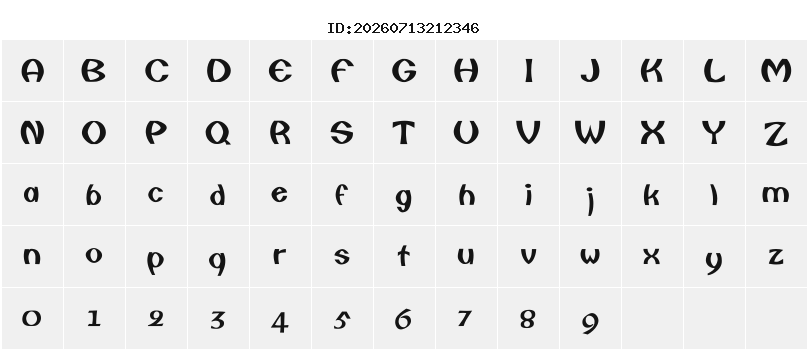
• Font Name: Camberic
• Full Font Name: Camberic
About Camberic.ttf
Camberic.ttf is a modern, elegant sans-serif font designed for ultimate readability and visual harmony. Perfect for branding, headlines, web design, and print materials.